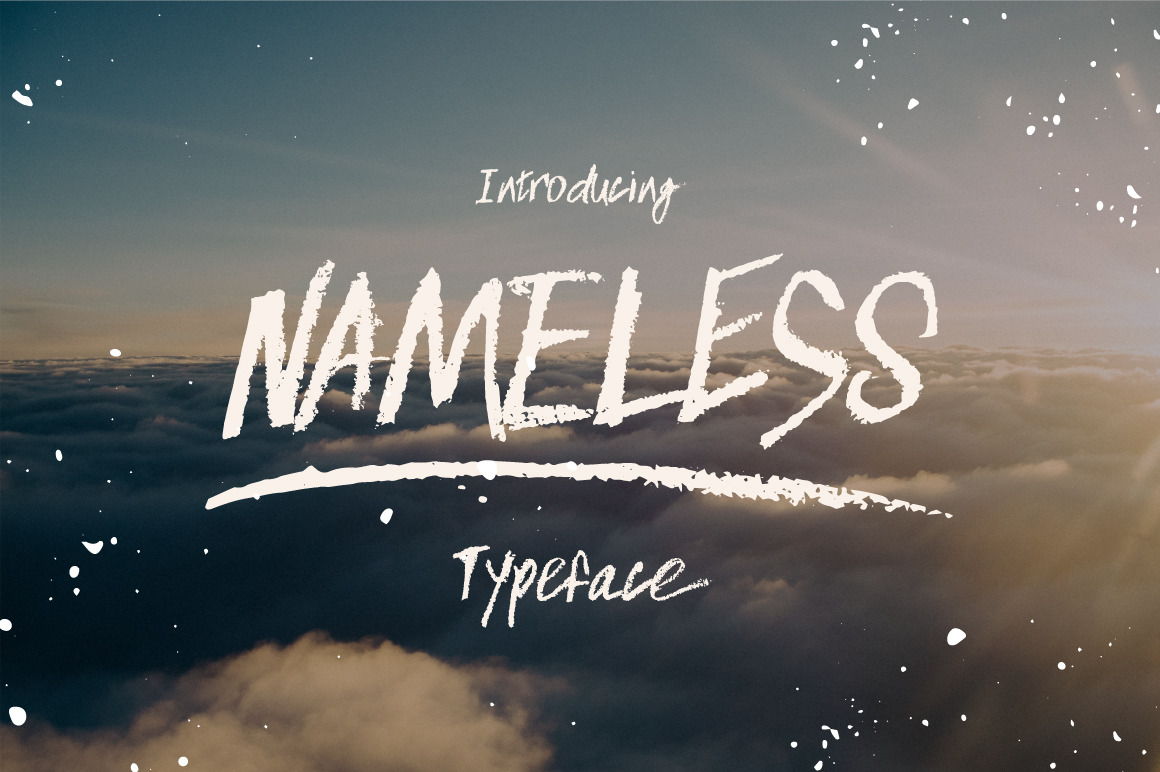
Nameless typeface
Nameless Typeface
Nameless - a new hand drawn chalk font with lots of character and fun extras.
Nameless font .otf - includes uppercase characters, lowercase, numerals and punctuations, support for international languages and lots of EXTRA alternate letters accessible via a glyphs panel.
Nameless swashes font .otf file - includes 20 grunge swashes for adding into your designs.
9 vector splatters - ,AI file with 9 hand drawn splatters to add mor depth.